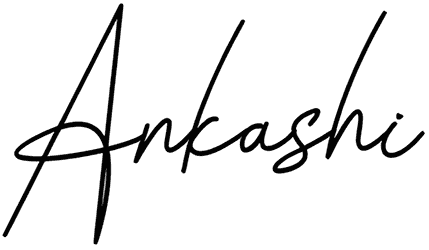
Ankashi Font
Do you like the hand art lettering for your upcoming design? Test Ankashi and watch how it will perform, and lend a friendly vibe to it. This autograph font, with its smooth, natural face, will be a charming opportunity for covering diverse projects such as banners, postcards, or the like, even with the backing of numbers. In addition, bear in mind that it may suffer from unreadability.